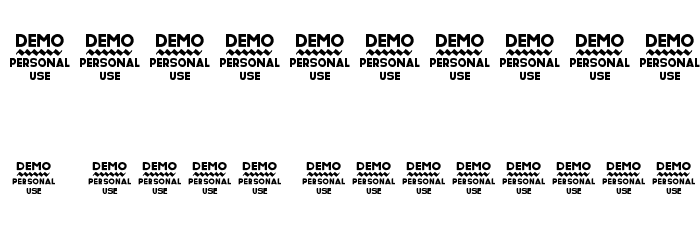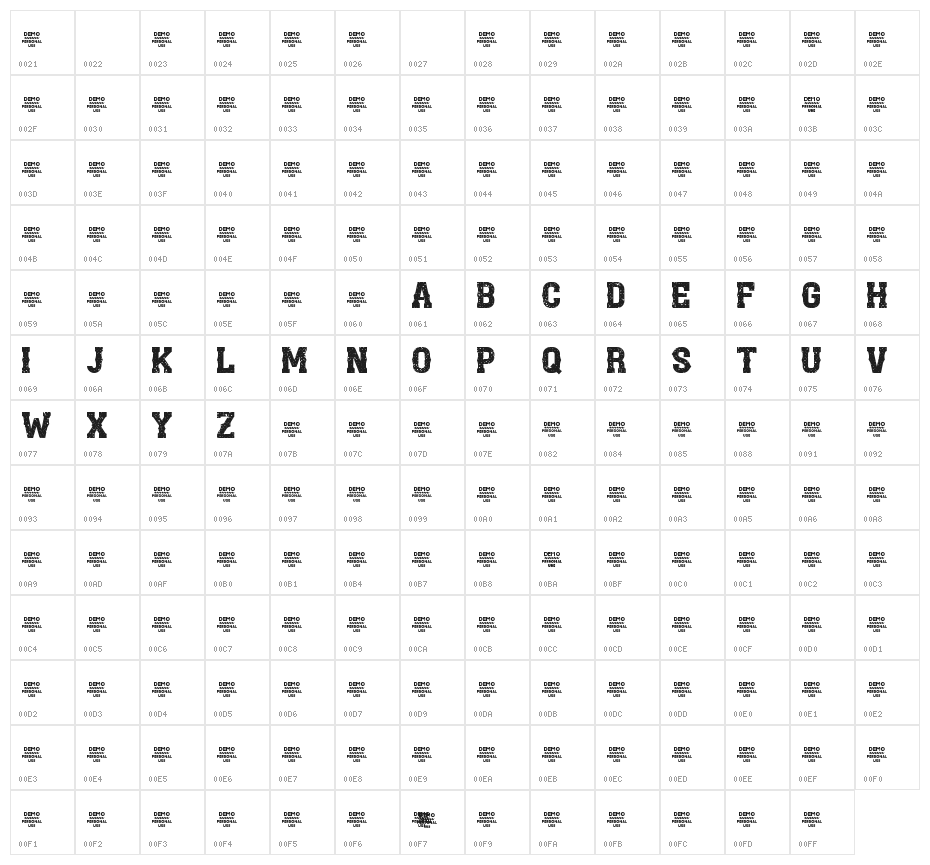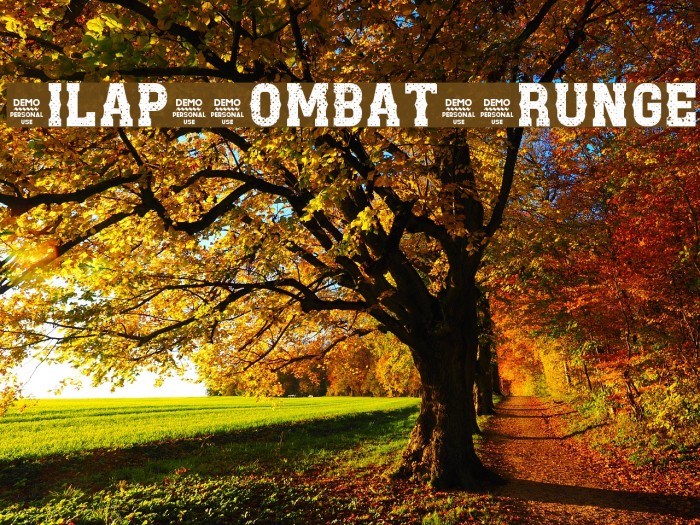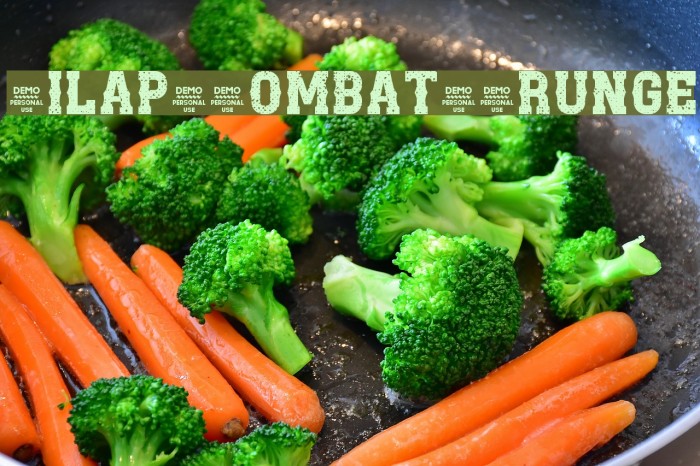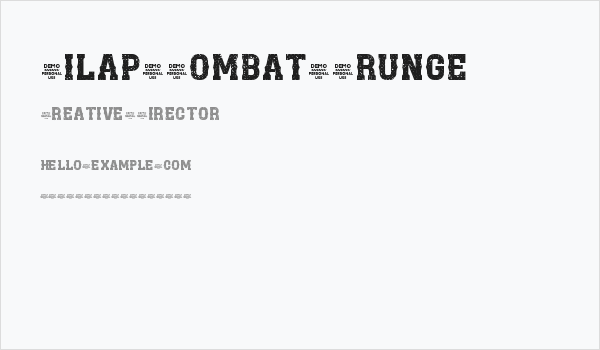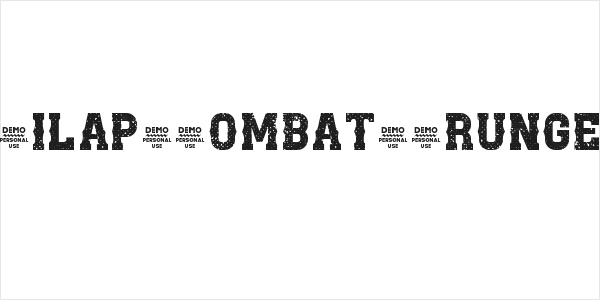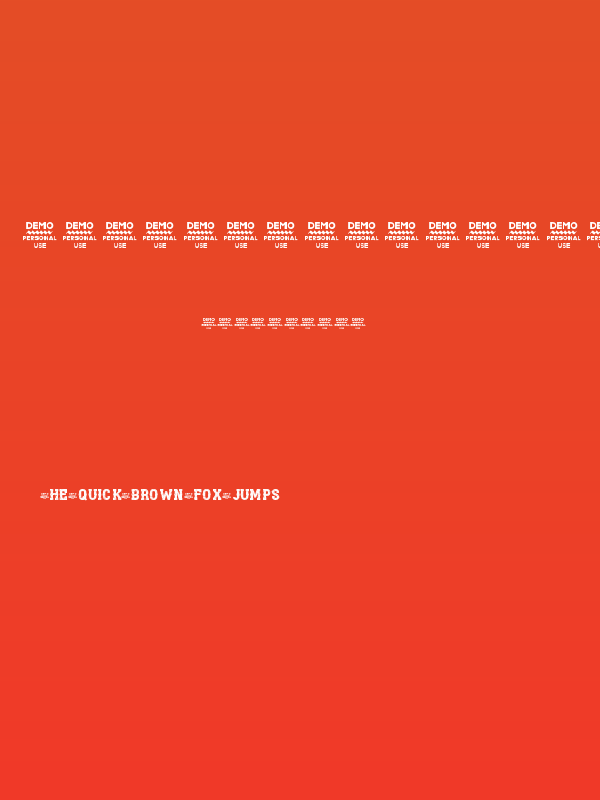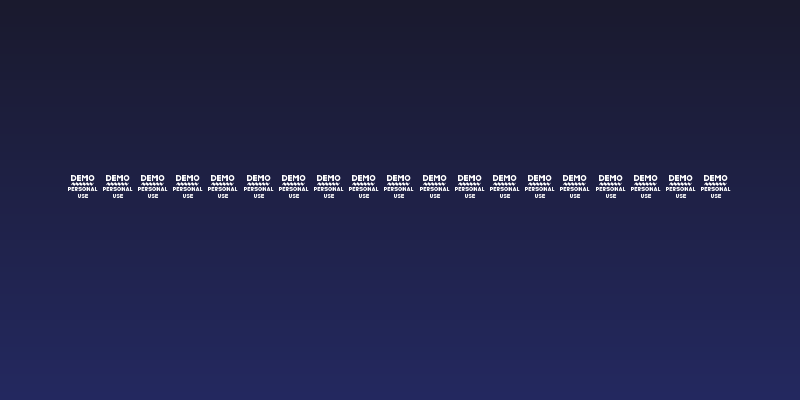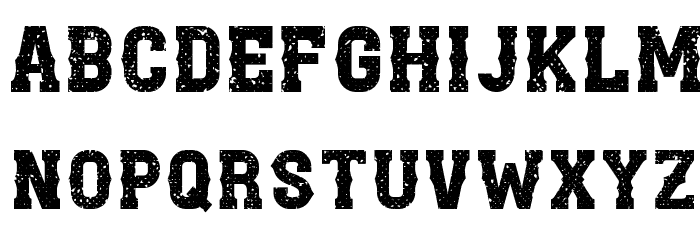
Zilap Combat Grunge Font
Zilap Combat Grunge Description
This font features a bold, distressed style with a grunge texture that gives it a rugged, worn appearance. The uppercase letters are prominent and impactful, making it ideal for designs that require a strong visual presence. The texture within each character adds a unique, edgy feel, reminiscent of vintage or industrial aesthetics. The font's design is consistent across all characters, maintaining a cohesive look that is both eye-catching and versatile. Its boldness and texture make it suitable for projects that aim to convey strength, resilience, or a gritty, urban vibe.
| Overall Style | Grunge, Vintage |
| Proposed Projects | Ideal for posters, album covers, branding for edgy products, or any project needing a strong, gritty aesthetic. |